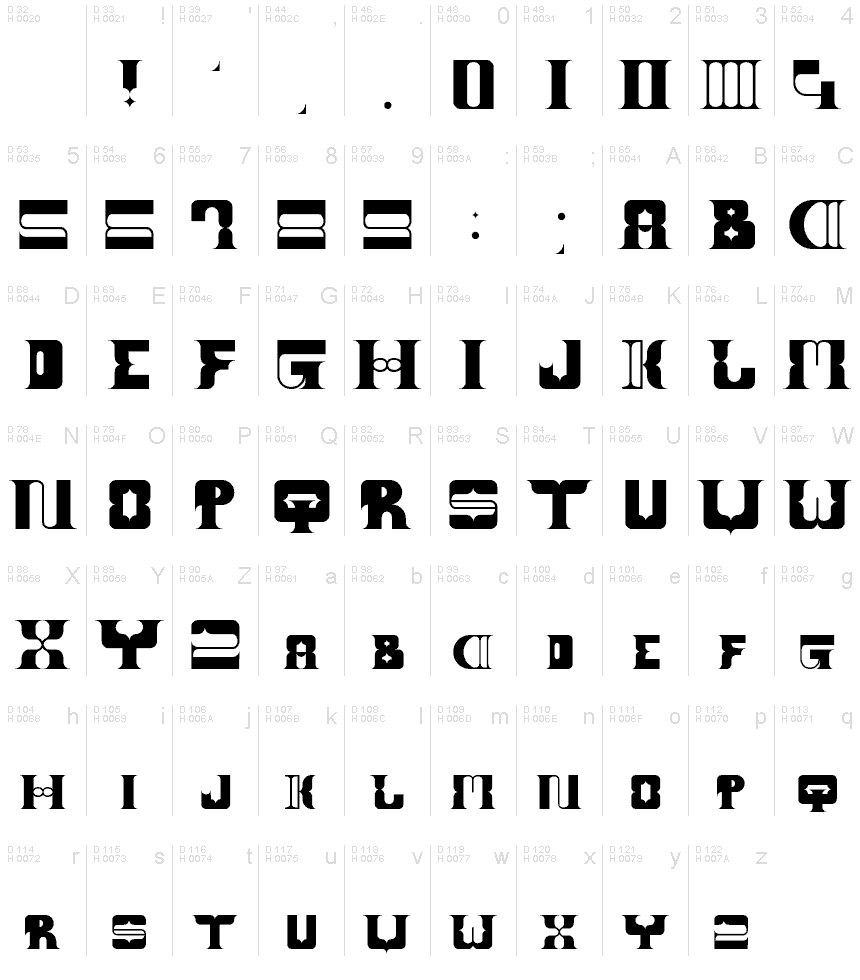
BLOCK PIE Regular
Block pie is a very peculiar bold display font by Luca Emme. It captures the essence of medieval and Renaissance culture through its unique font designs, as the Block pie letters have been crafted by adding geometric and angular shapes to the classic sans serifs and serifs that we are so used to.
The font is extremely versatile; you can add an eccentric touch to branding and logo projects, headline, packaging designs, or make eye-catching social media posts, all by using block pie letters that are reminiscent of old school typewriters.